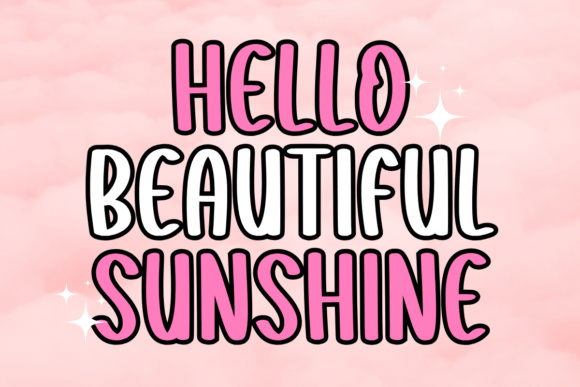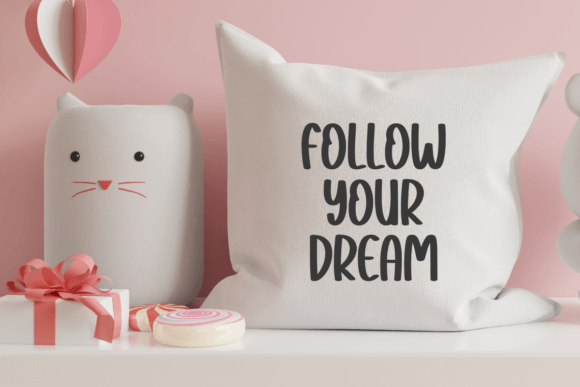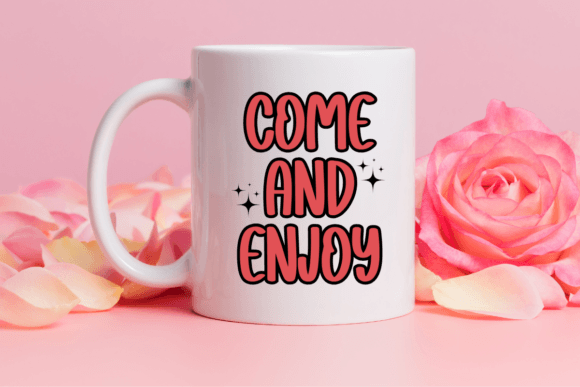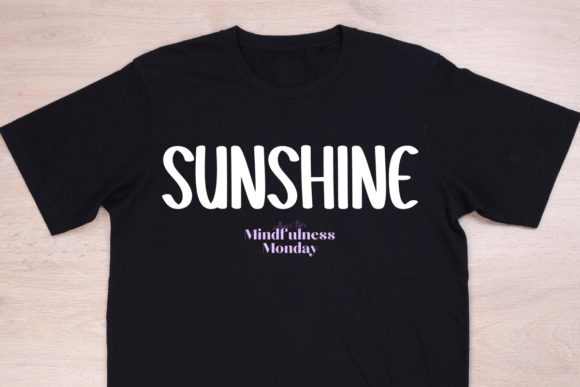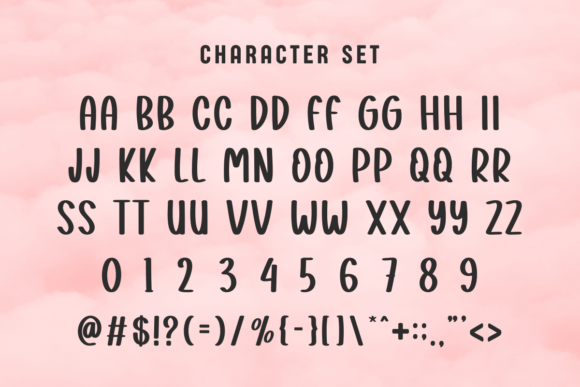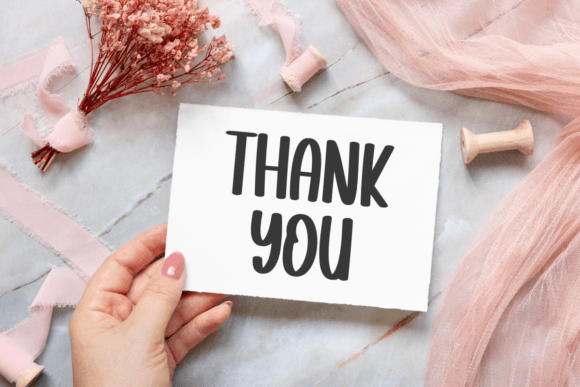
Introduction to Pinky Season Font Font
Fonts play a crucial role in design, and the Pinky Season Font font is a typeface that brings both character and versatility to any project. Whether you’re working on a branding project, a website, or a print design, the Pinky Season Font font offers a unique style that can elevate your work.
Pinky Season is designed in a modern and playful display font .
This would be awesome for your fun projects or diary planner Letβs try it for your perfect project like Easter, back to school, wedding, party decorations, invitations, Fall,Summer,Winter, Halloween, Christmas, posters, blogs, clothing, poster,banner,headlines,merchandise,kids related designs, greeting cards, social media posts, or anything that requires a friendly touch.
Key Features of Pinky Season Font Font
Why Choose Pinky Season Font Font?
The Pinky Season Font font is more than just a typeface β it’s a design tool that helps you communicate your message with style and clarity. Its unique character set and versatile design make it suitable for a wide range of applications, from elegant invitations to bold headlines.
With its carefully crafted letterforms and balanced proportions, the Pinky Season Font font ensures readability and visual appeal across all mediums.
What makes Pinky Season Font font special?
The Pinky Season Font font stands out with its unique design, exceptional readability, and versatility across various design applications.